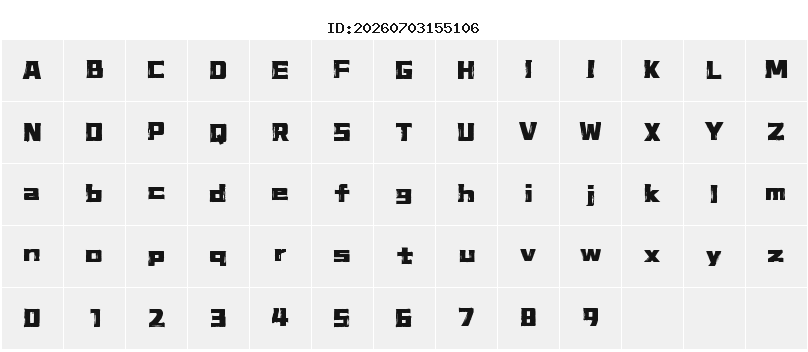
367-上首山海体 Preview
• Font Name: 367-上首山海体
• Full Font Name: 367-上首山海体
About 367-上首山海体.ttf
367-上首山海体.ttf is a modern, elegant sans-serif font designed for ultimate readability and visual harmony. Perfect for branding, headlines, web design, and print materials.